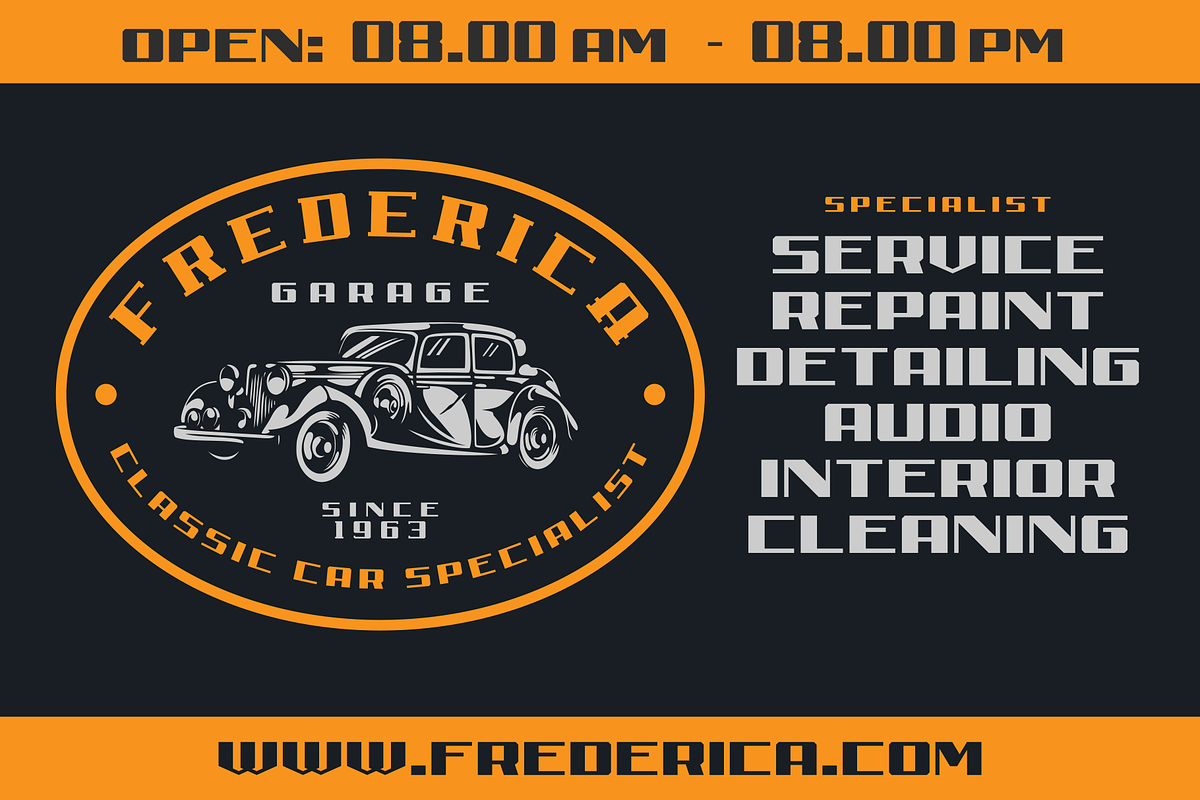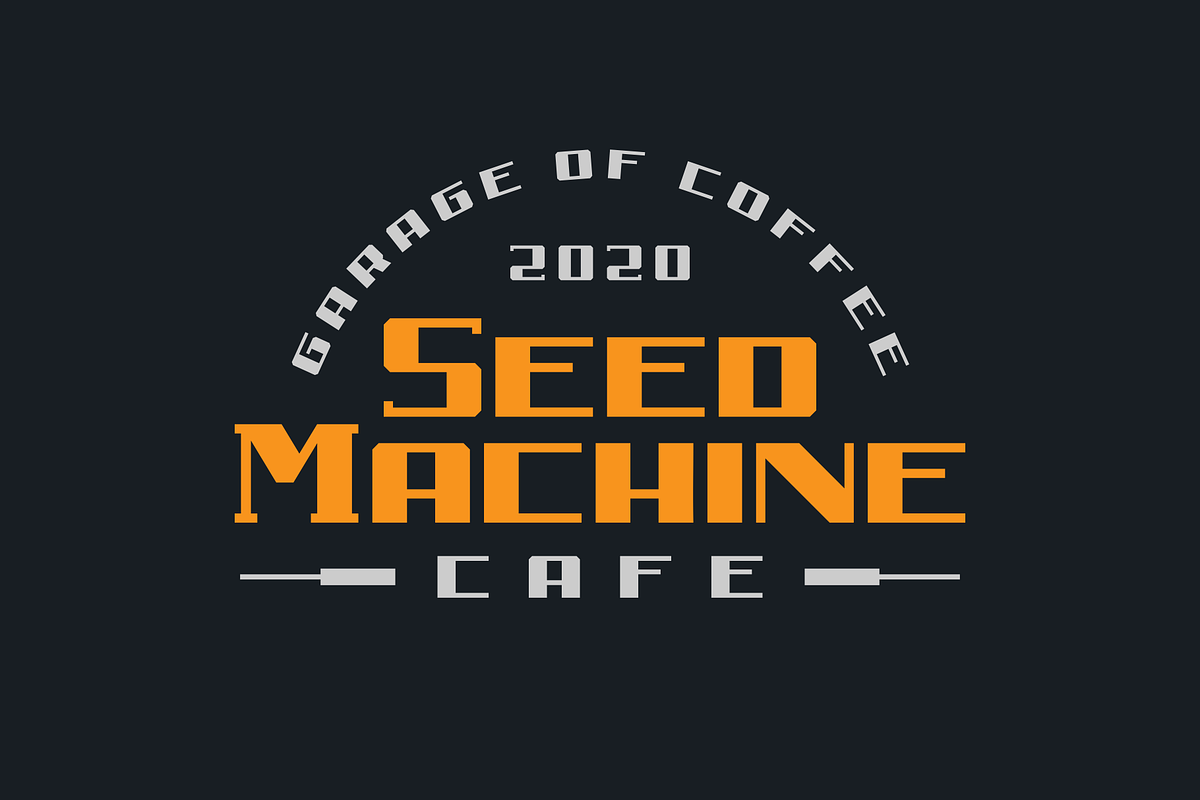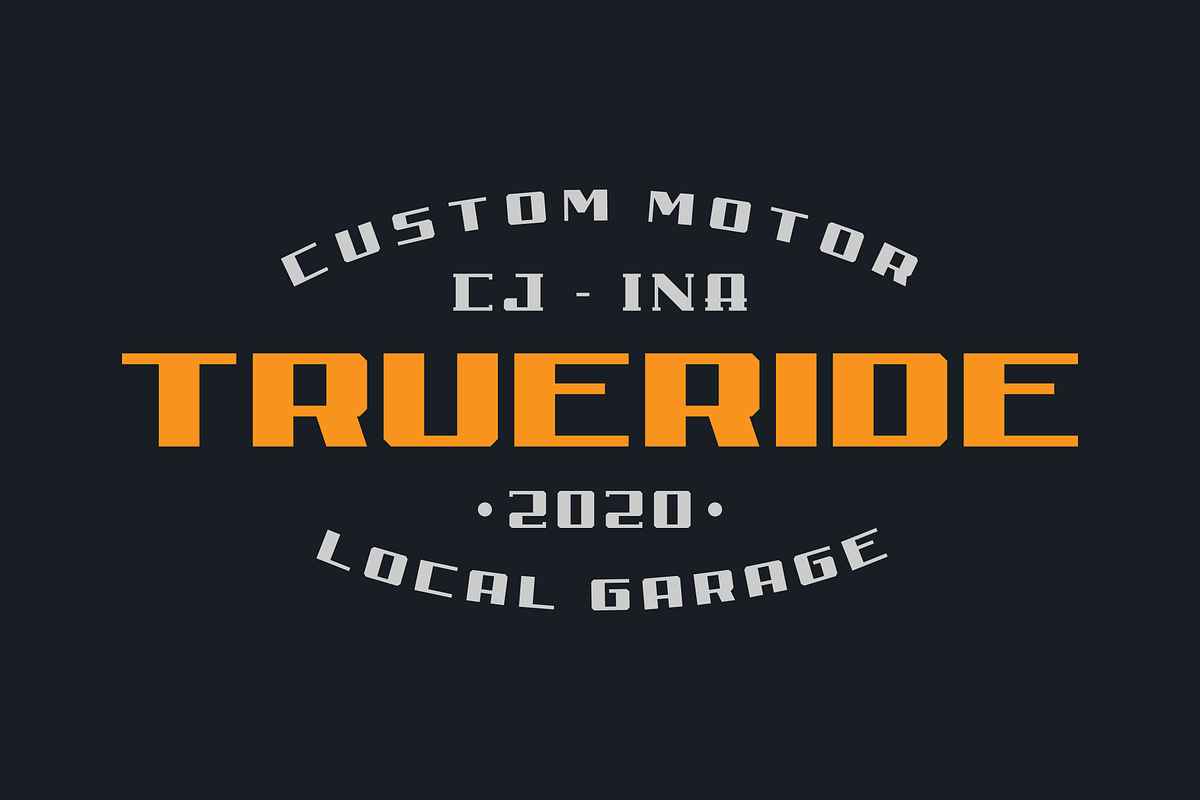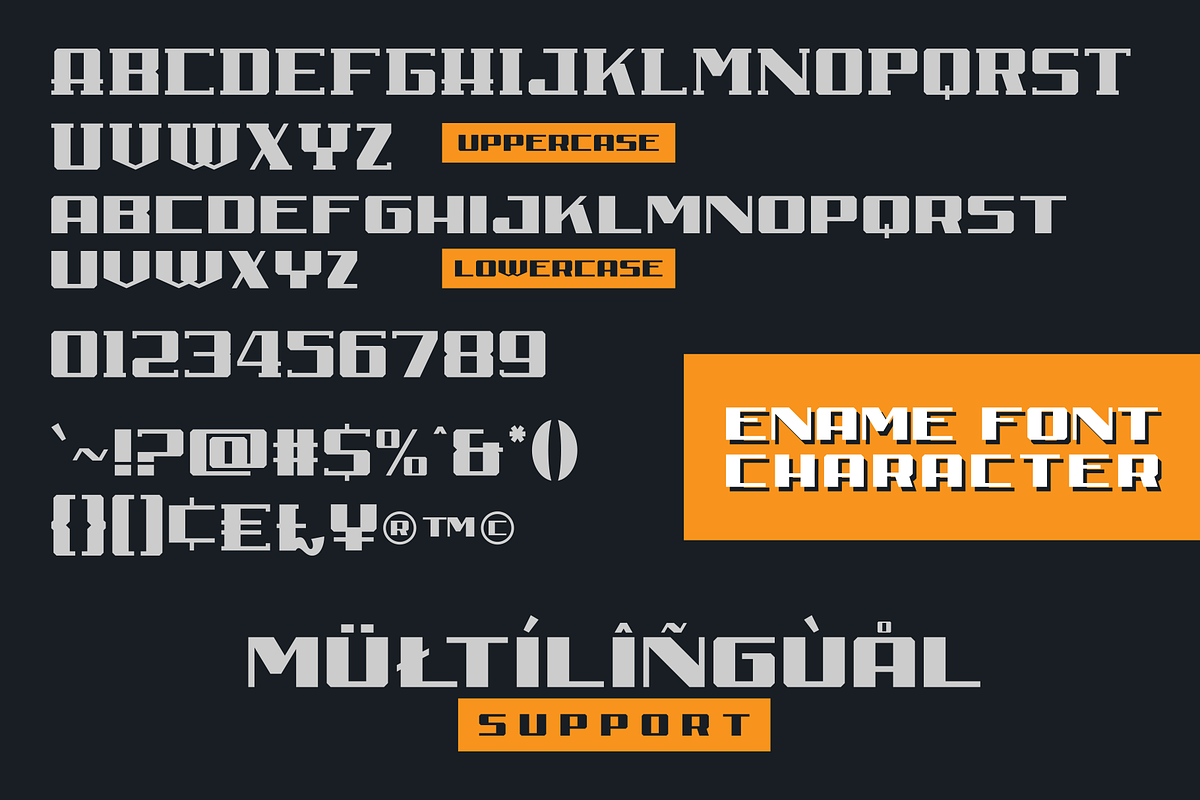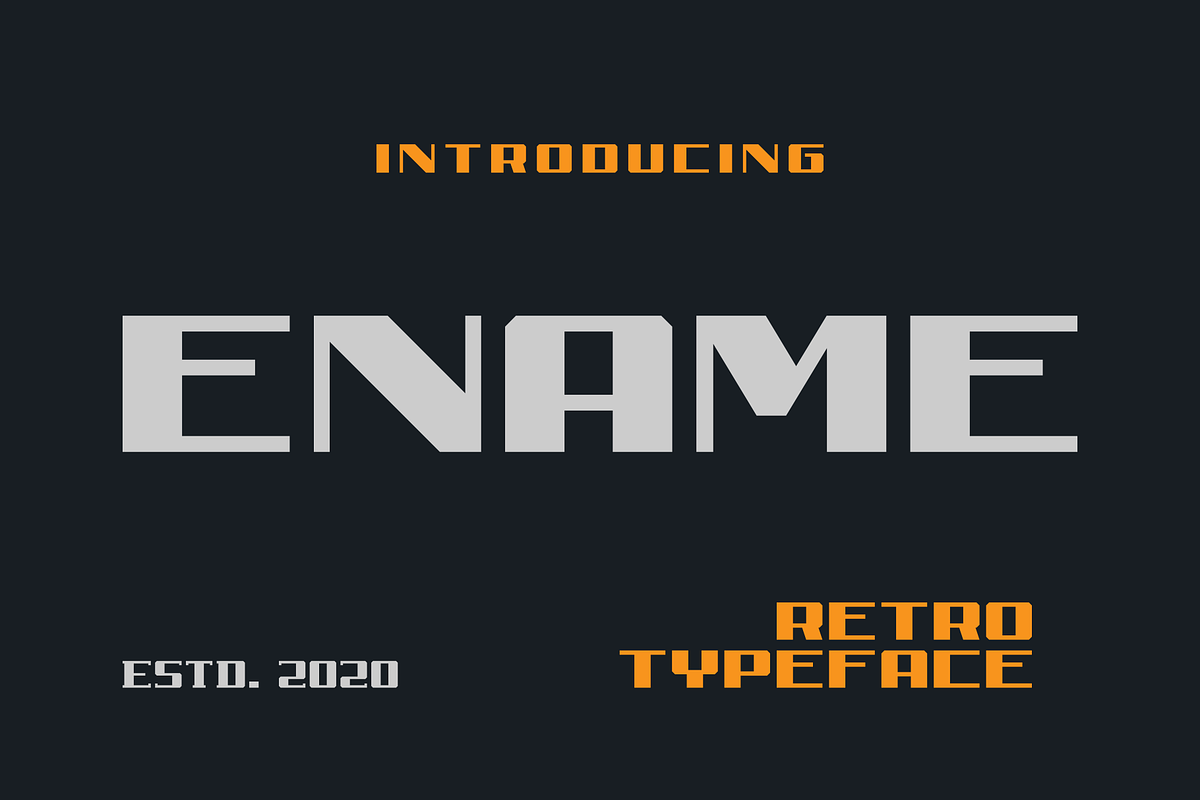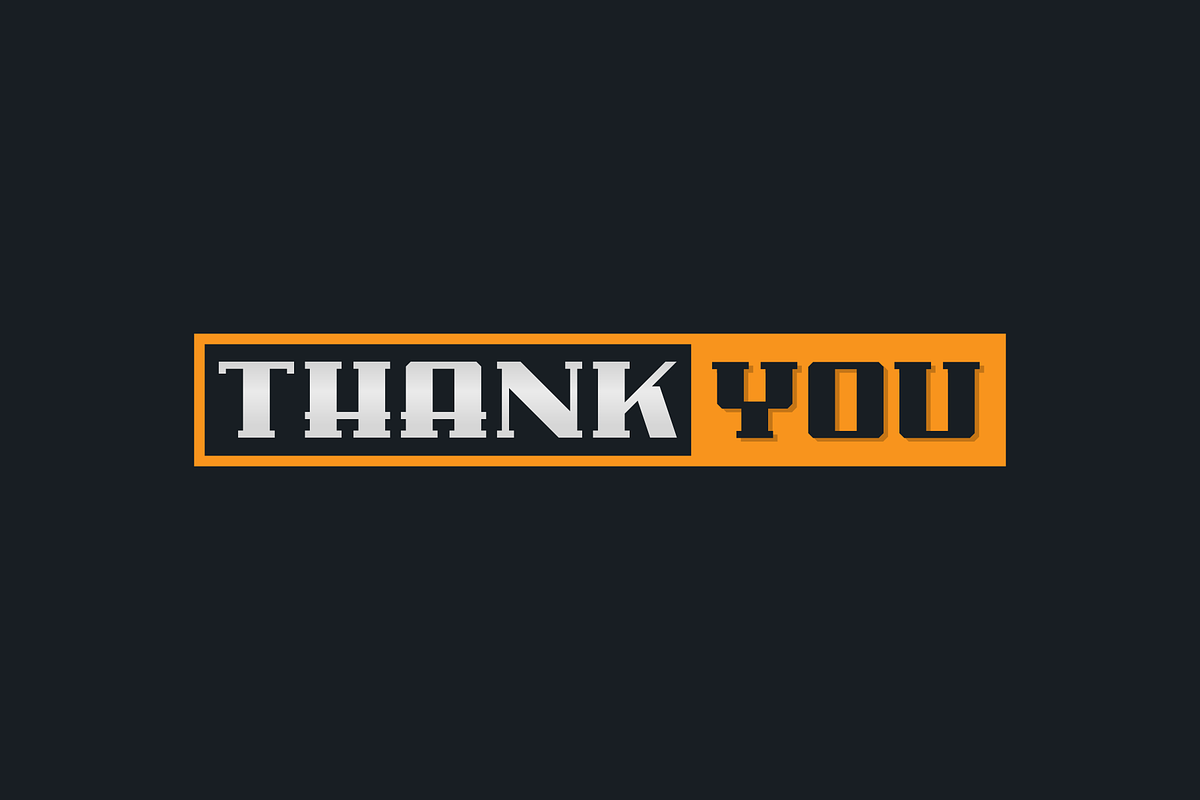
Ename Retro Sans
Retro display fonts are perfect for logos, label designs, product designs, posters, flayer and just about anything.
- Multilingual support (ÀÁÂÃÅÄÆŒÇÐÈÉÊËÌÍÎÏÑÒÓÔÕÖØŠÙÚÛÜÝŸŽŁ)